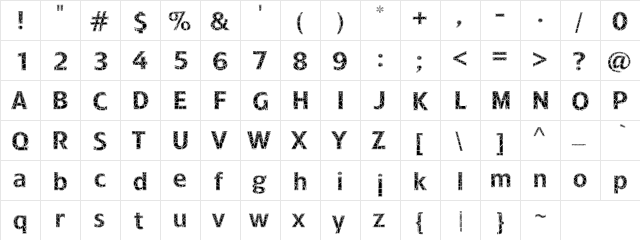
Treacyfaces College Shatter Medium
Design Context for Treacyfaces College Shatter Typeface
Treacyfaces College Shatter brings high-energy athletic personality to the page — its confident, muscular forms are built for impact.
Built for sports team identities, athletic apparel, event posters, and high-energy promotional material.
Font Pairing: Use alongside a condensed or geometric sans for supporting copy — keep the pairing bold, functional, and free of ornament.
Pro Tip: Treacyfaces College Shatter thrives on contrast — try it large, bold, and tight against a clean background for maximum visual impact.